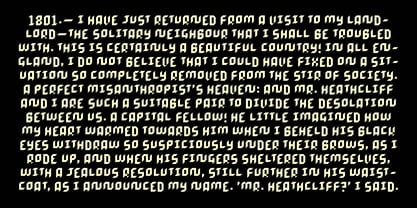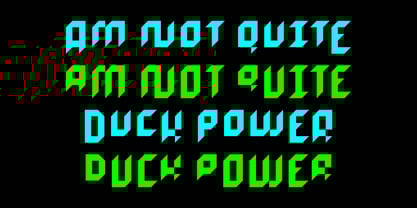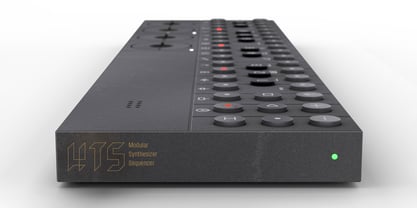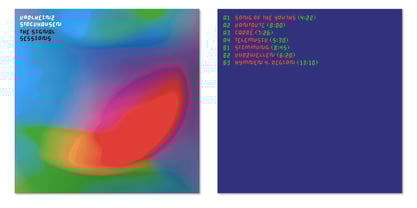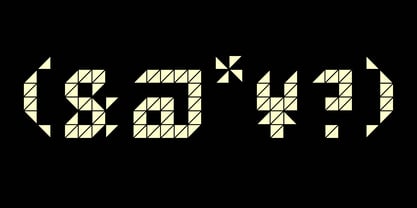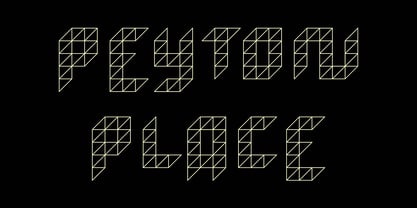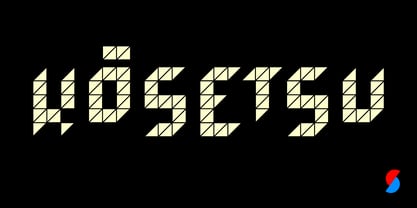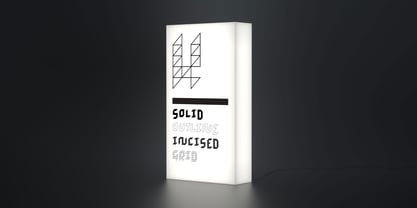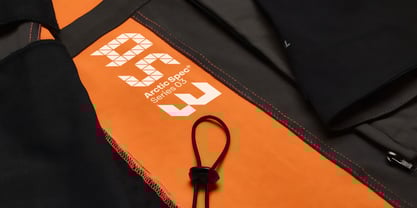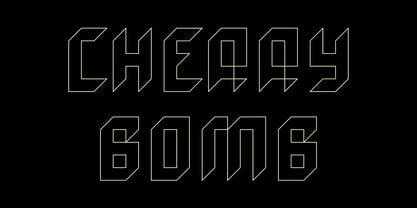
Kosetsu
by Signal Type Foundry
The Kosetsu Font Family was designed by Max Phillips and published by Signal Type Foundry. Kosetsu contains 4 styles and family package options. More about this family
Kōsetsu is an exercise in restraint, a grid-based all-caps modular typeface assembled from a single isosceles right triangle. Its blocky, angular forms reference both broad-nibbed calligraphy and 8-bit video games. Letters vary in height, creating a syncopated rhythm which users can control with a set of alternates. It was originally made for a checkers-style board game in which triangles represent mountains and players dodge avalanches; Kōsetsu is Japanese for ‘snowfall.’ Available in four styles—Solid, Outline, Incised, and Grid—each of them derived from the letterforms’ underlying grid structure. Designed by Archie Heaslip.
Designers: Max Phillips
Foundry: Signal Type Foundry